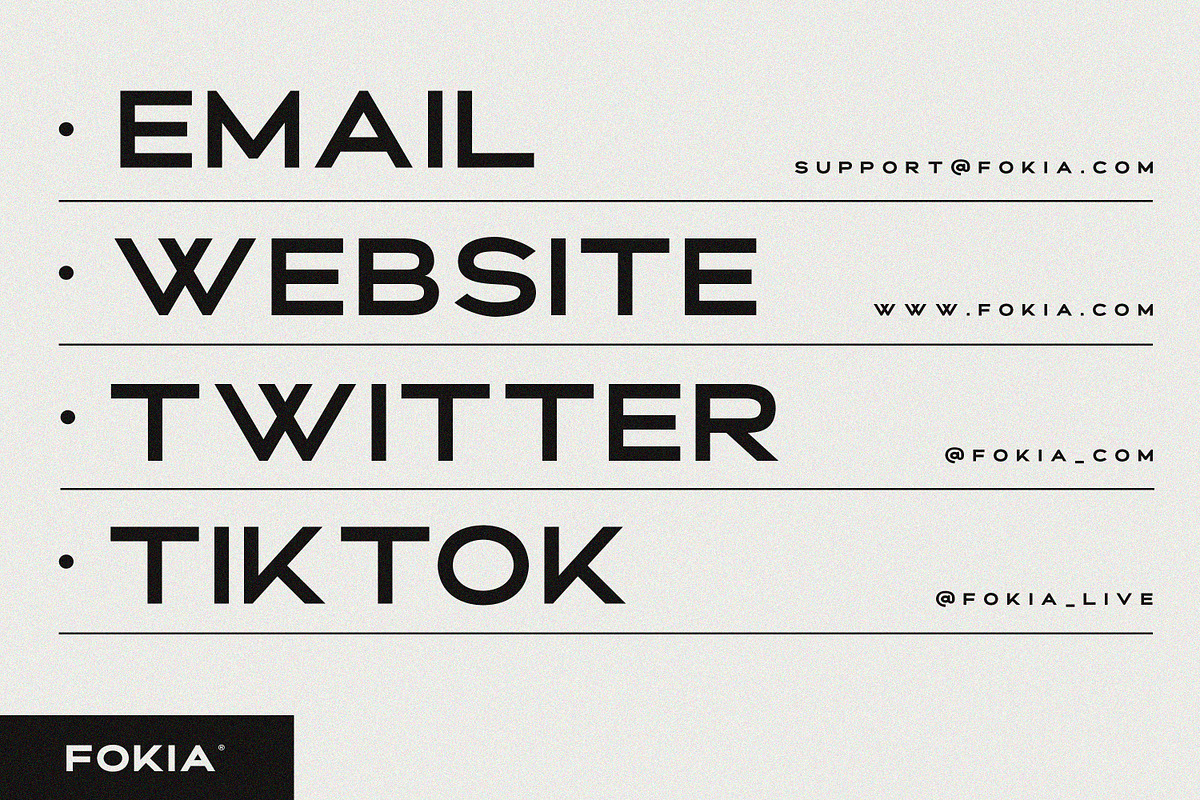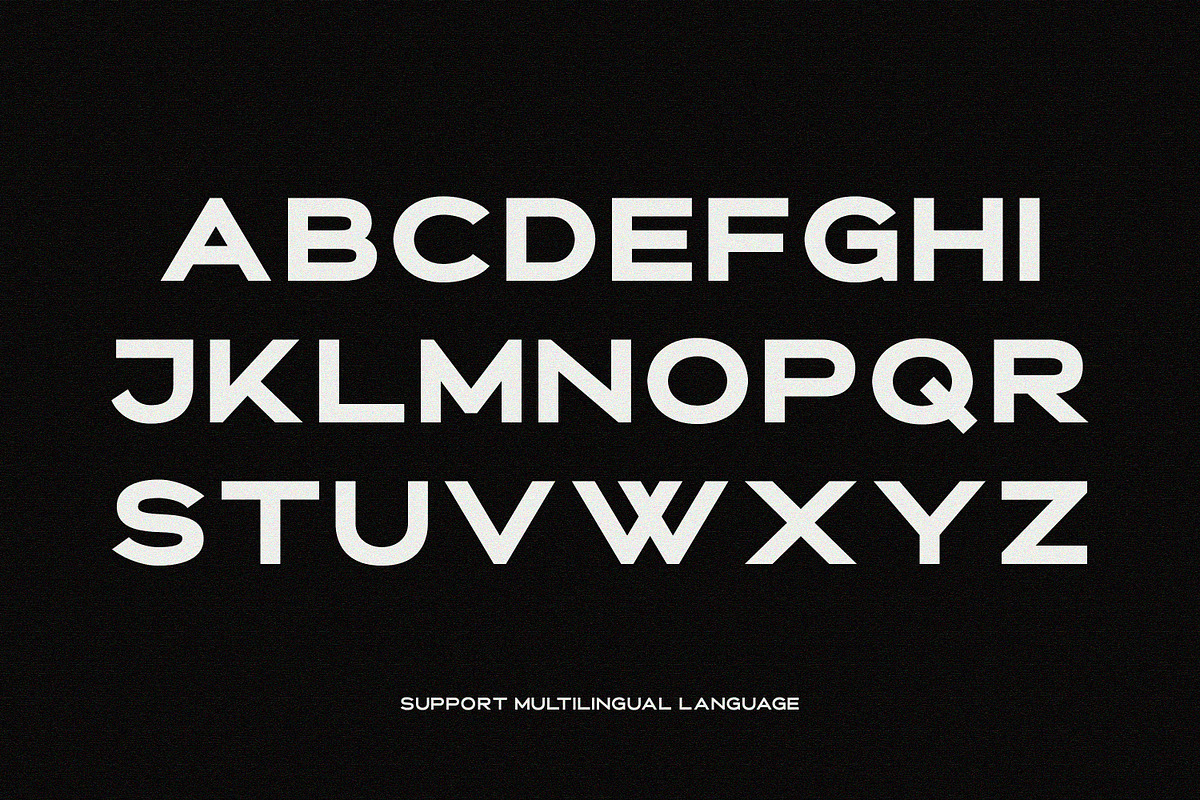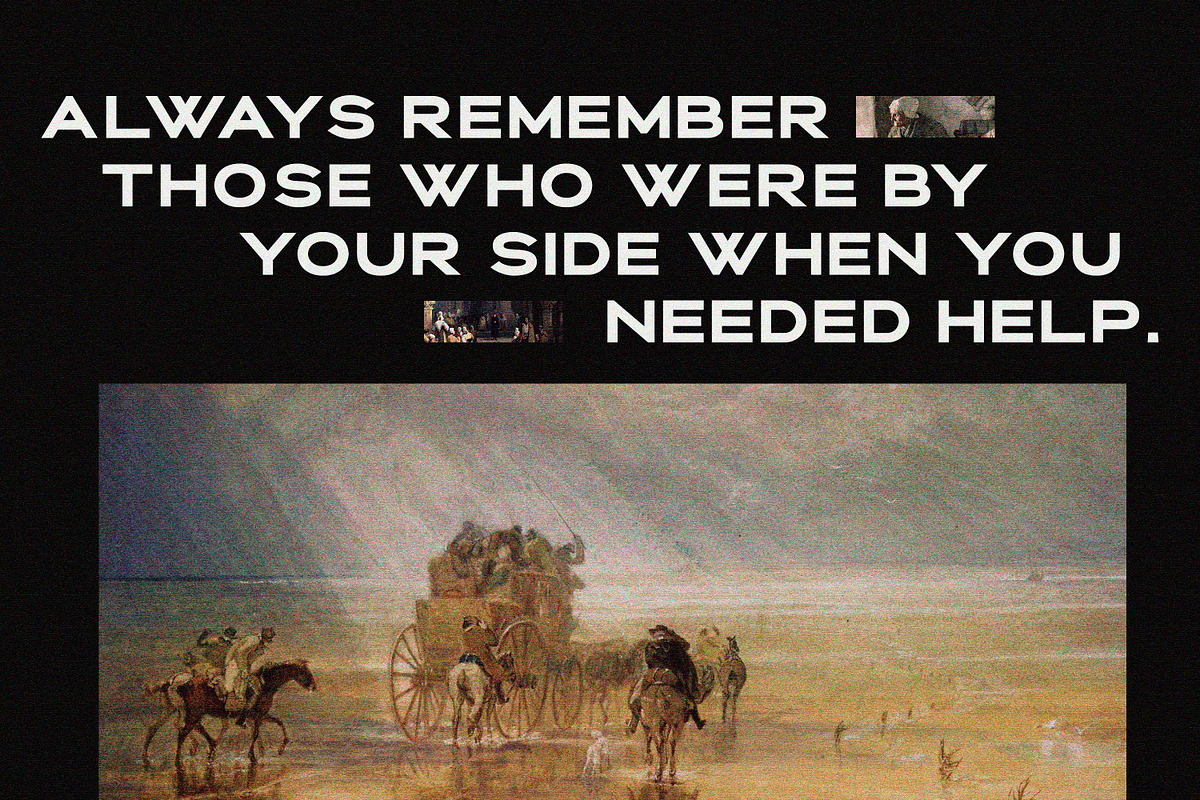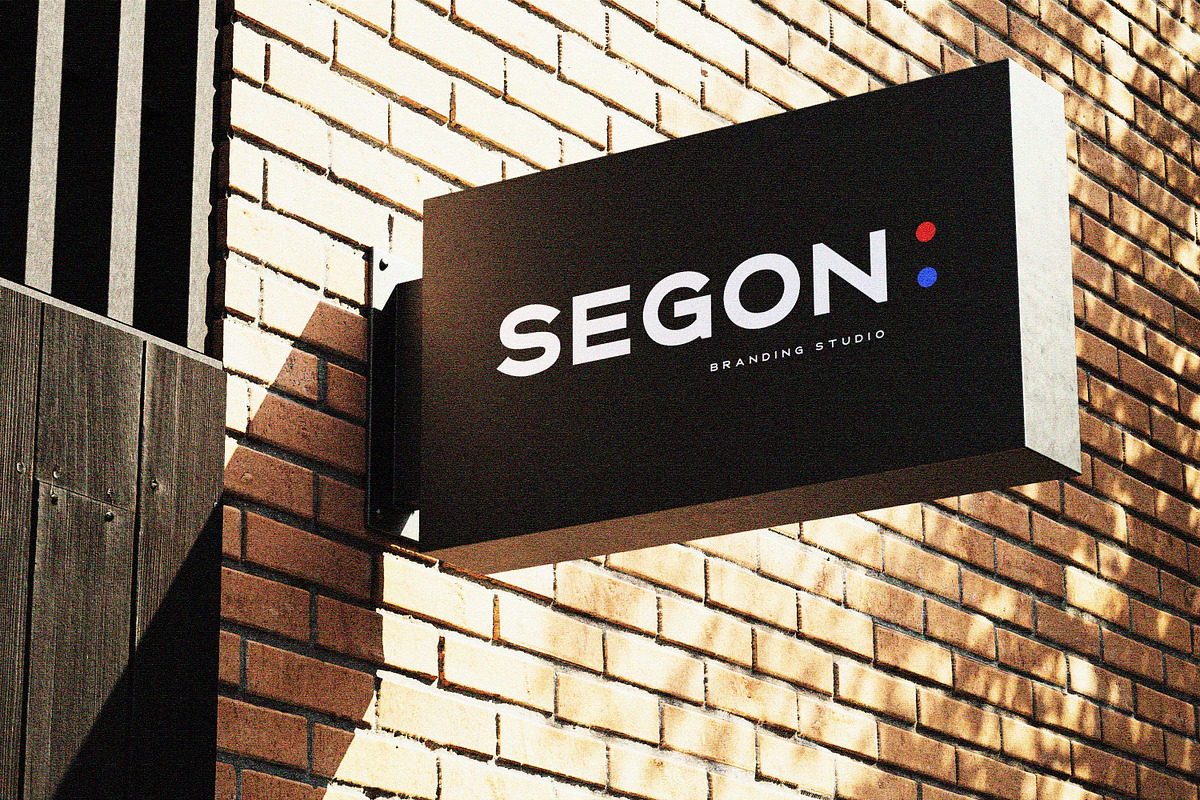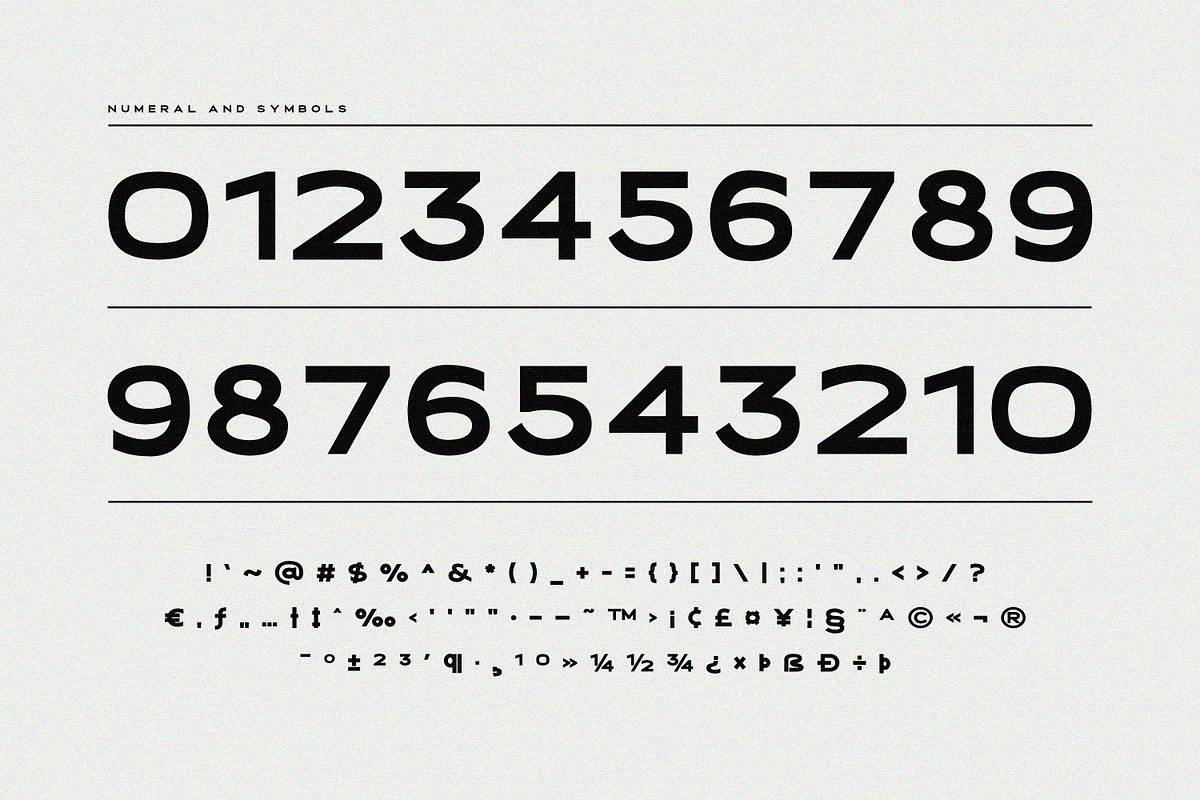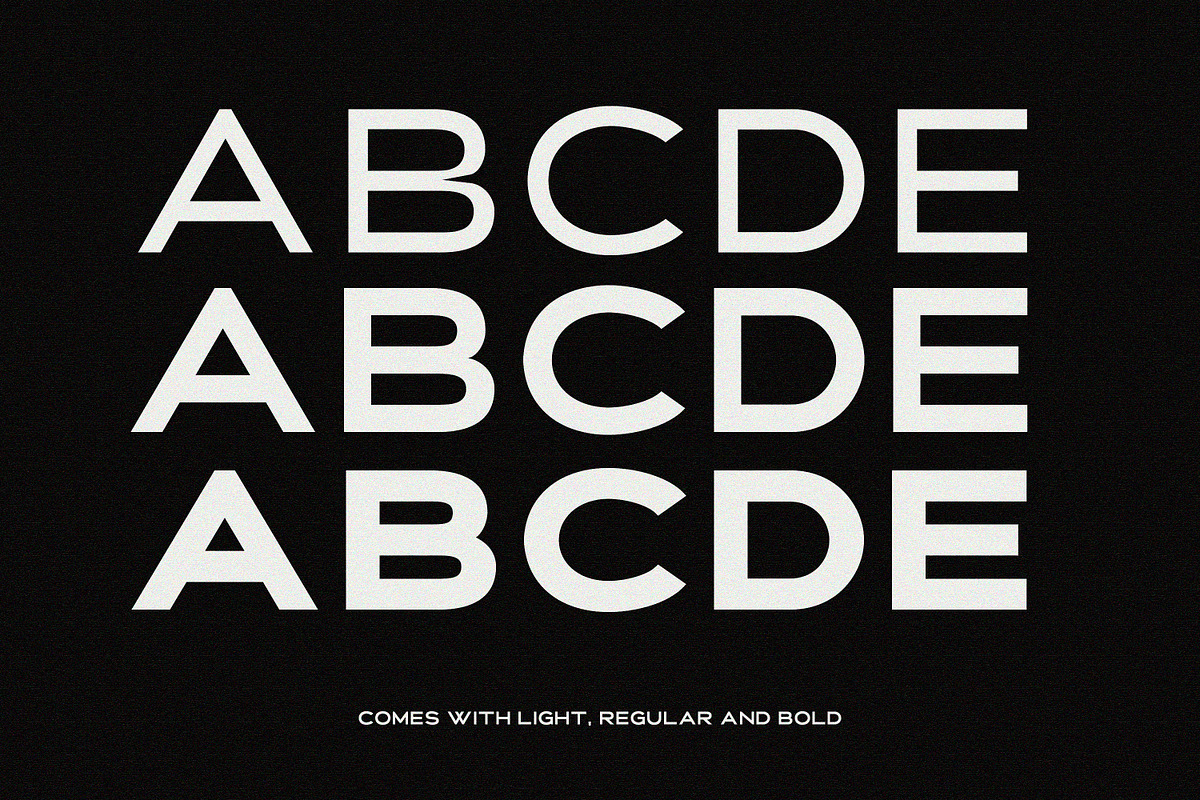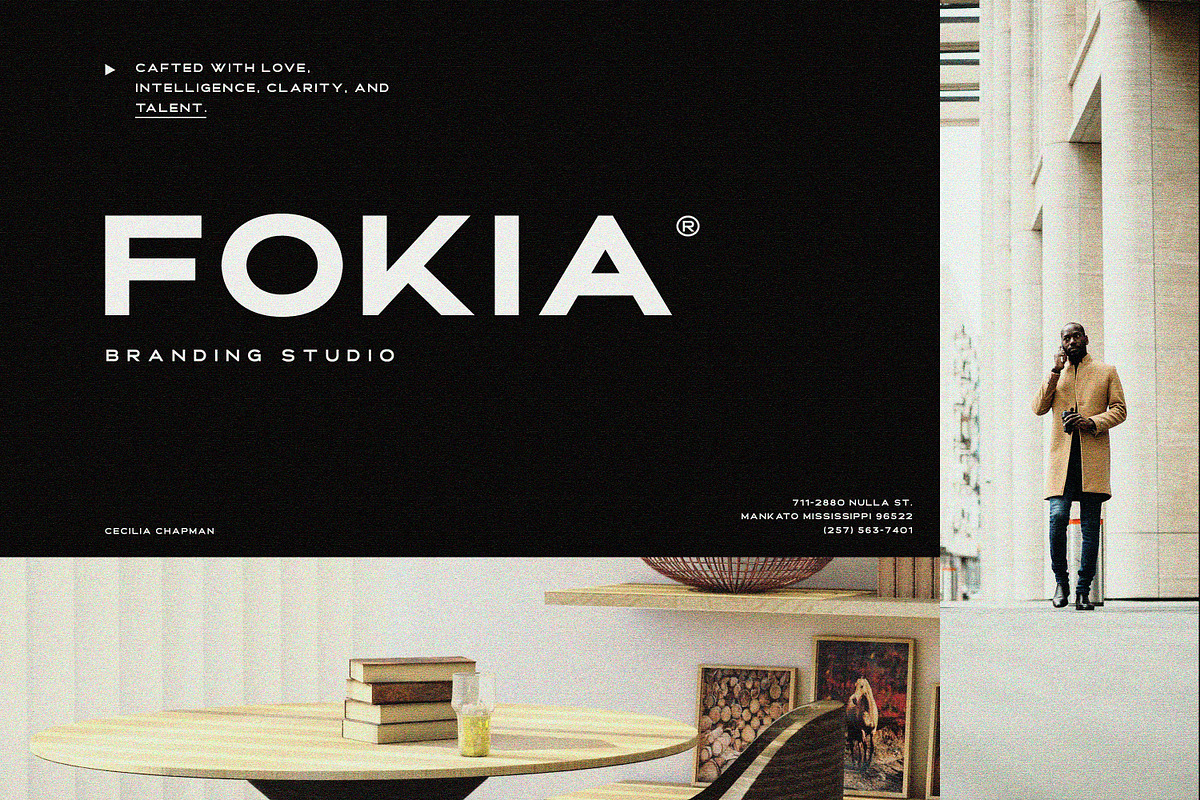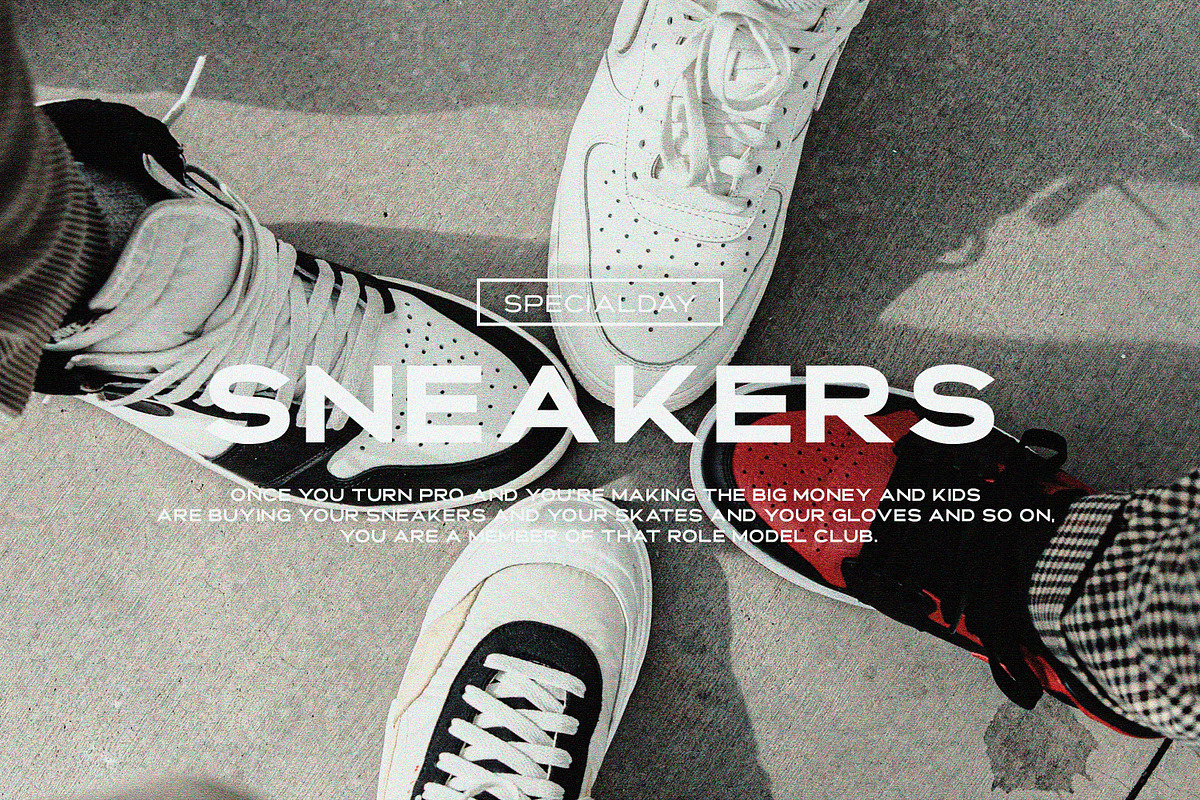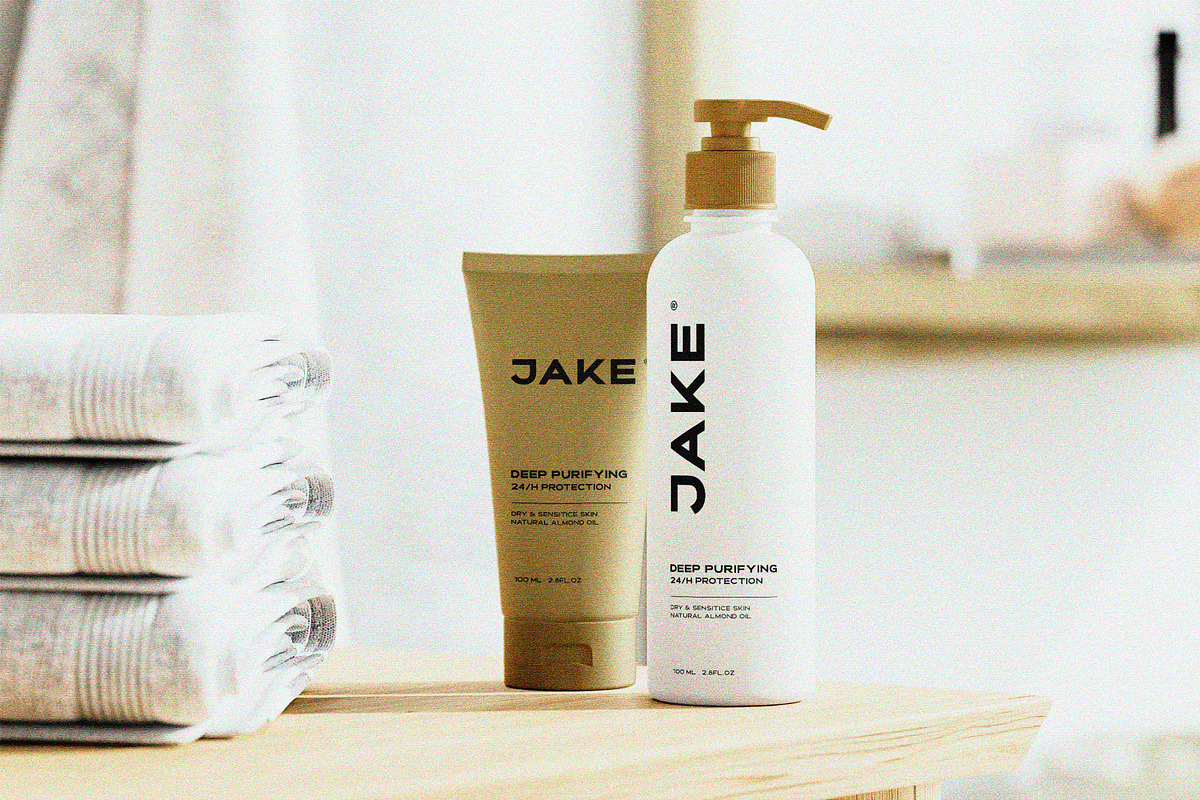
Kento - The Modern Sans Font
This time we present a font with a bit of a classic touch. The font is slightly stretched to the sides. The font is simple and luxurious, so it leaves a deep memory impression when used on a brand. Simple and powerful. This is an overview of the font as a whole. Kento will be perfect for many projects: fashion, magazines, logos, branding, photography, invitations, wedding invitation, quotes, blog headers, posters, advertisements, postcards, books, websites, etc.